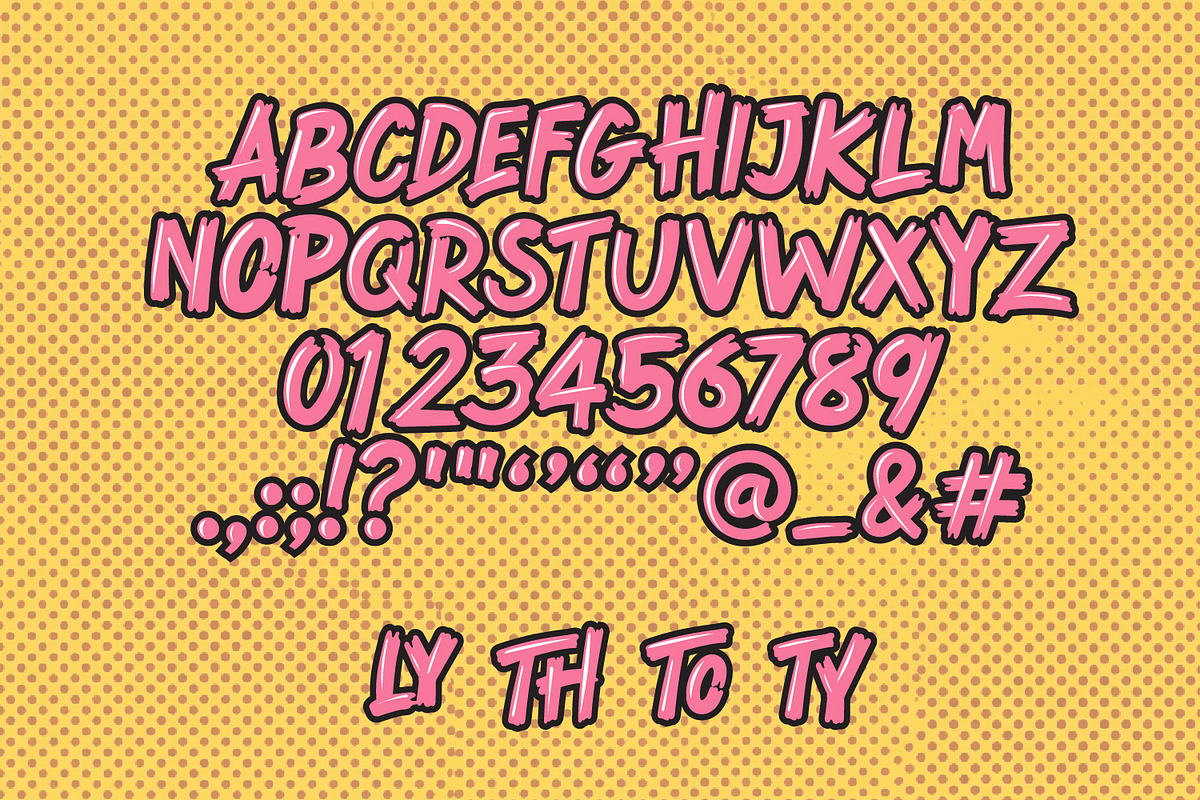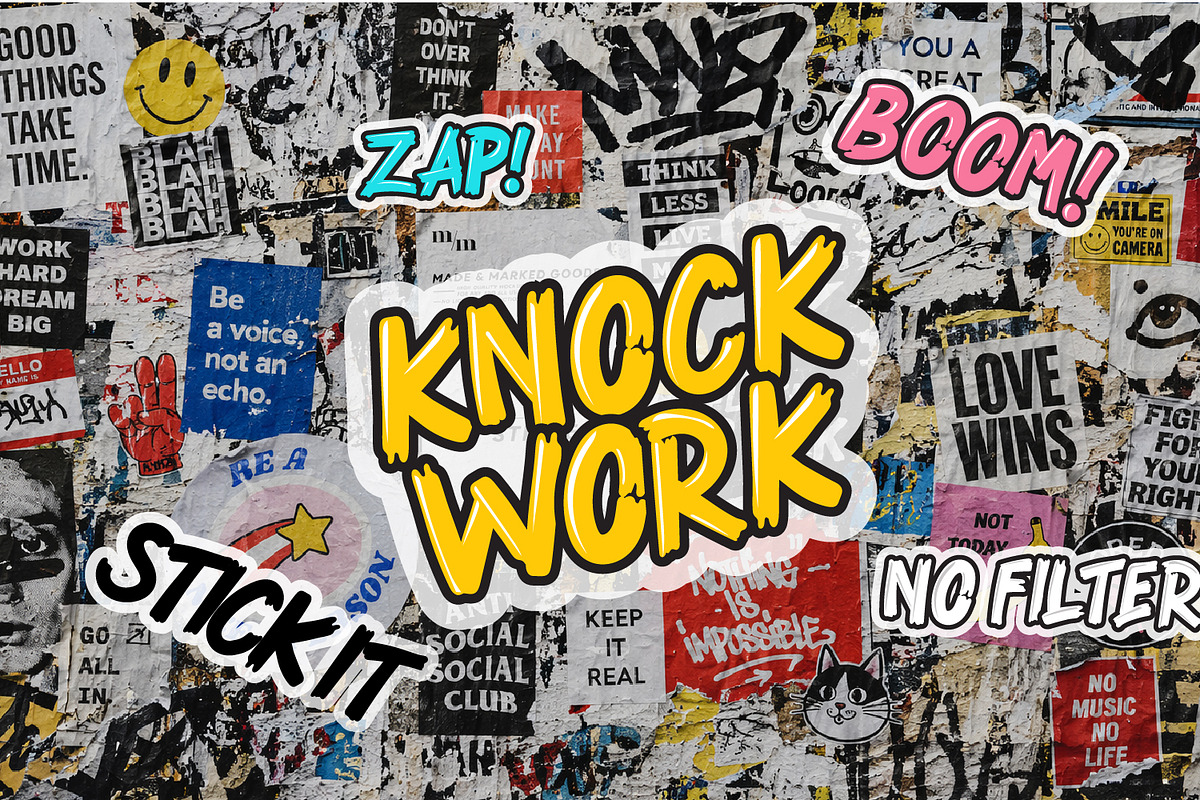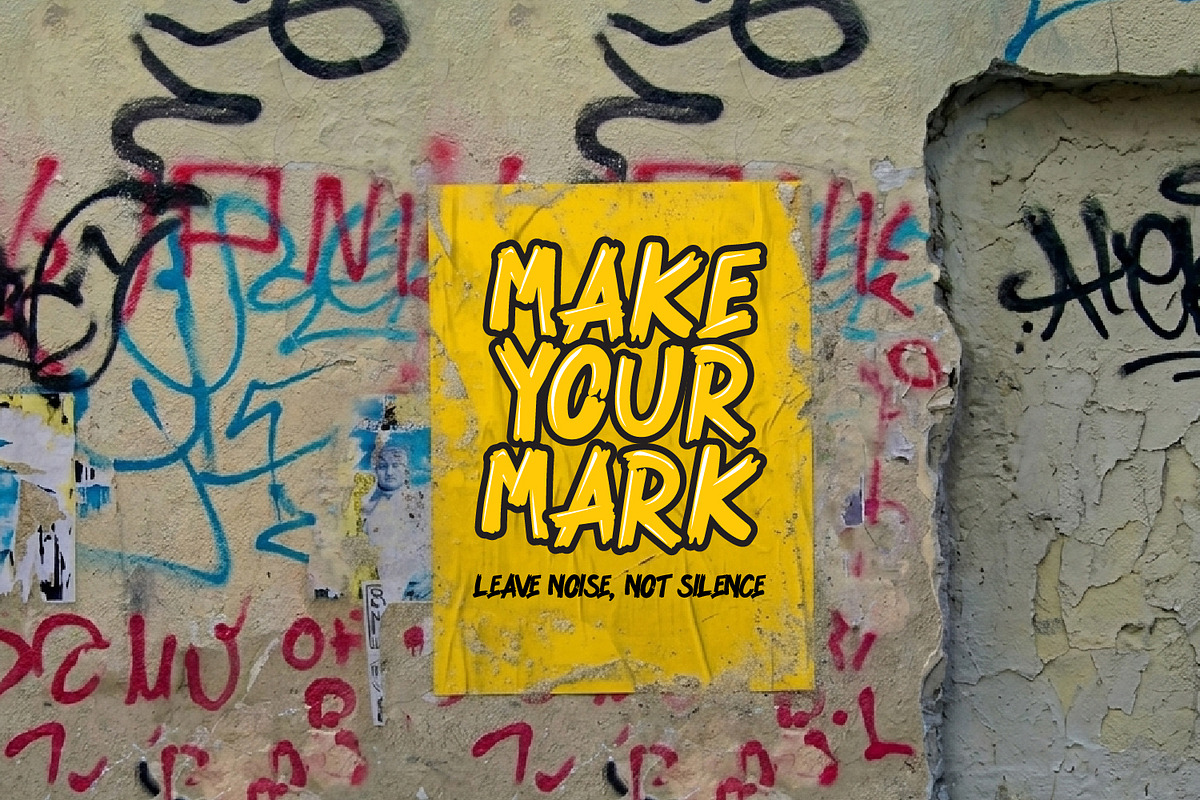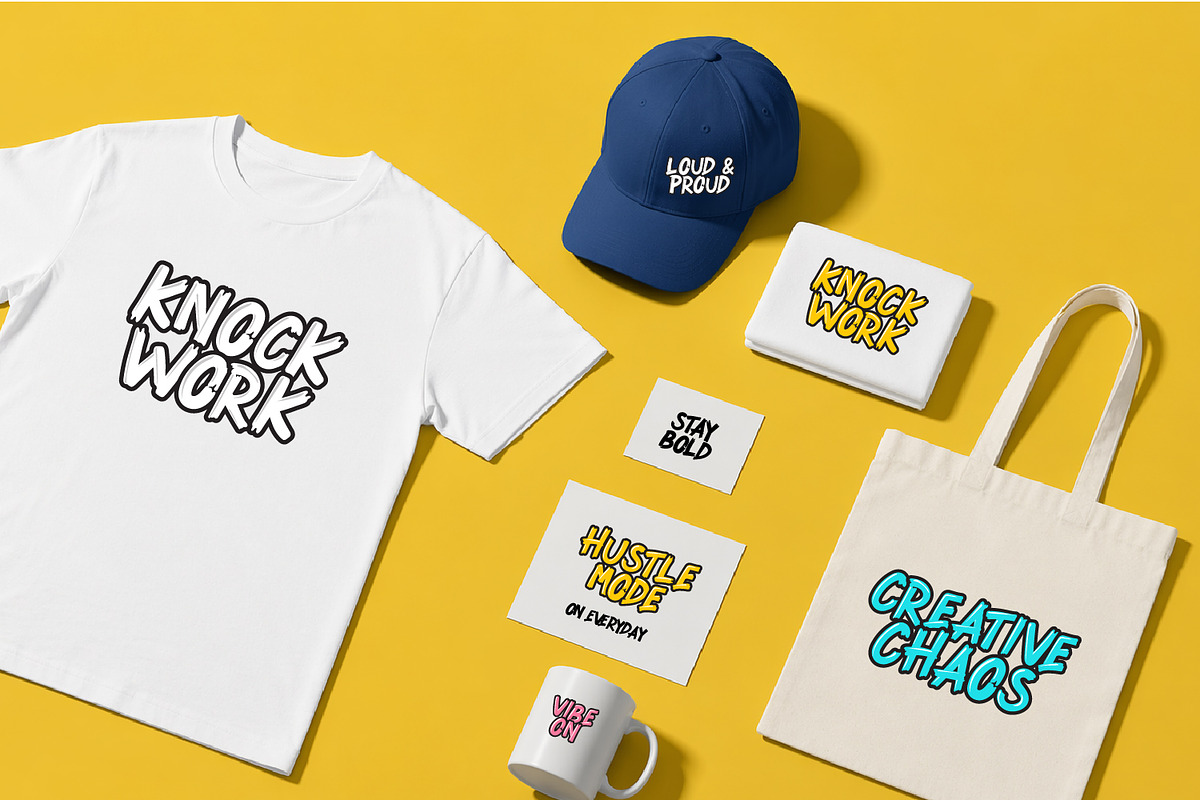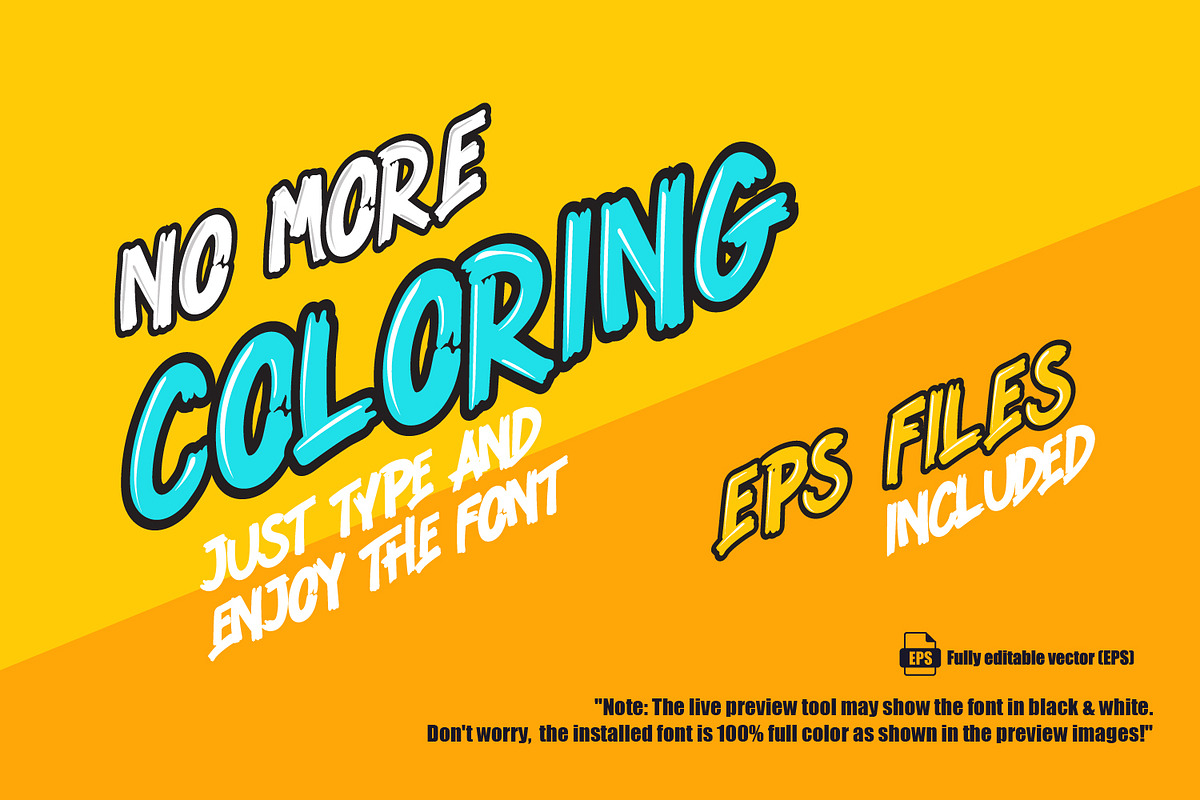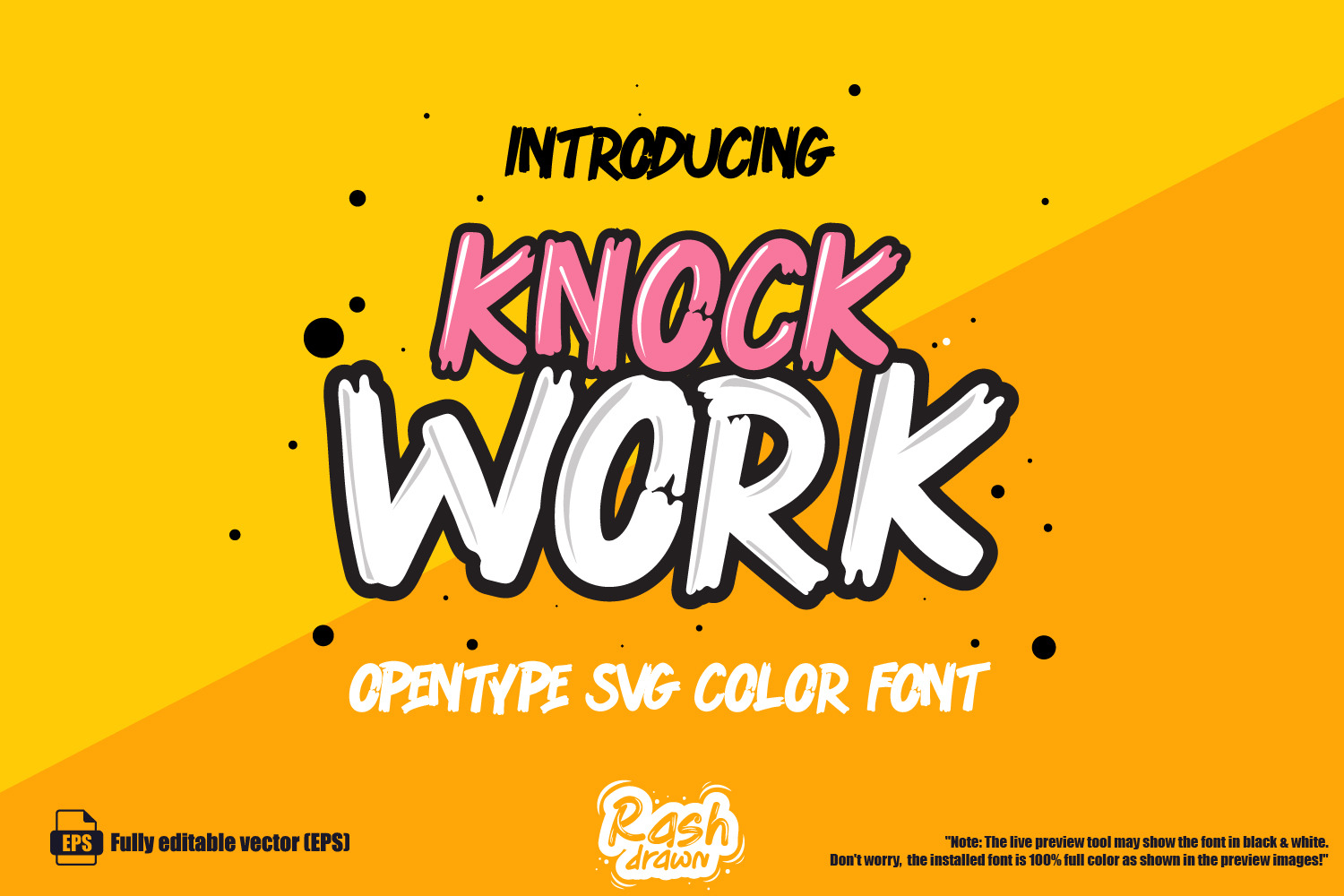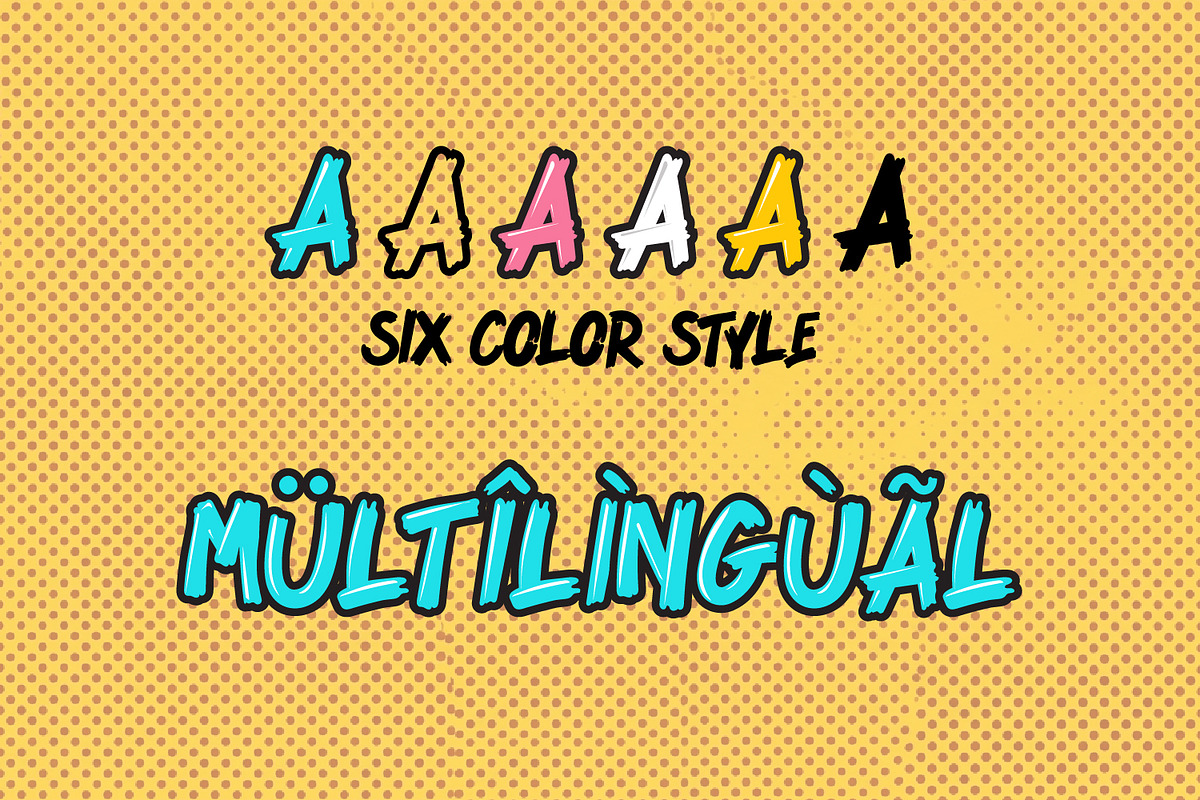
KNOCKWORK - Comic SVG Color Font
Bring the Punch to Your Design!
Introducing KNOCKWORK, an energetic OpenType-SVG color font designed to make your text jump off the screen. With its thick, bubbly outlines and realistic layered shadows, KNOCK WORK captures the vibrant essence of modern pop art and street culture.
Whether you're designing sticker packs, high-impact posters, or trendy apparel, this font eliminates the need for manual layering. Just type and enjoy the instant 3D comic effect!
Multilingual Support: Ready for global projects with accented characters.
Streetwear & Apparel Branding
Sticker Design & Stationery
Social Media Graphics & YouTube Thumbnails
Comic Books & Zine Layouts
Eye-catching Posters & Event Banners